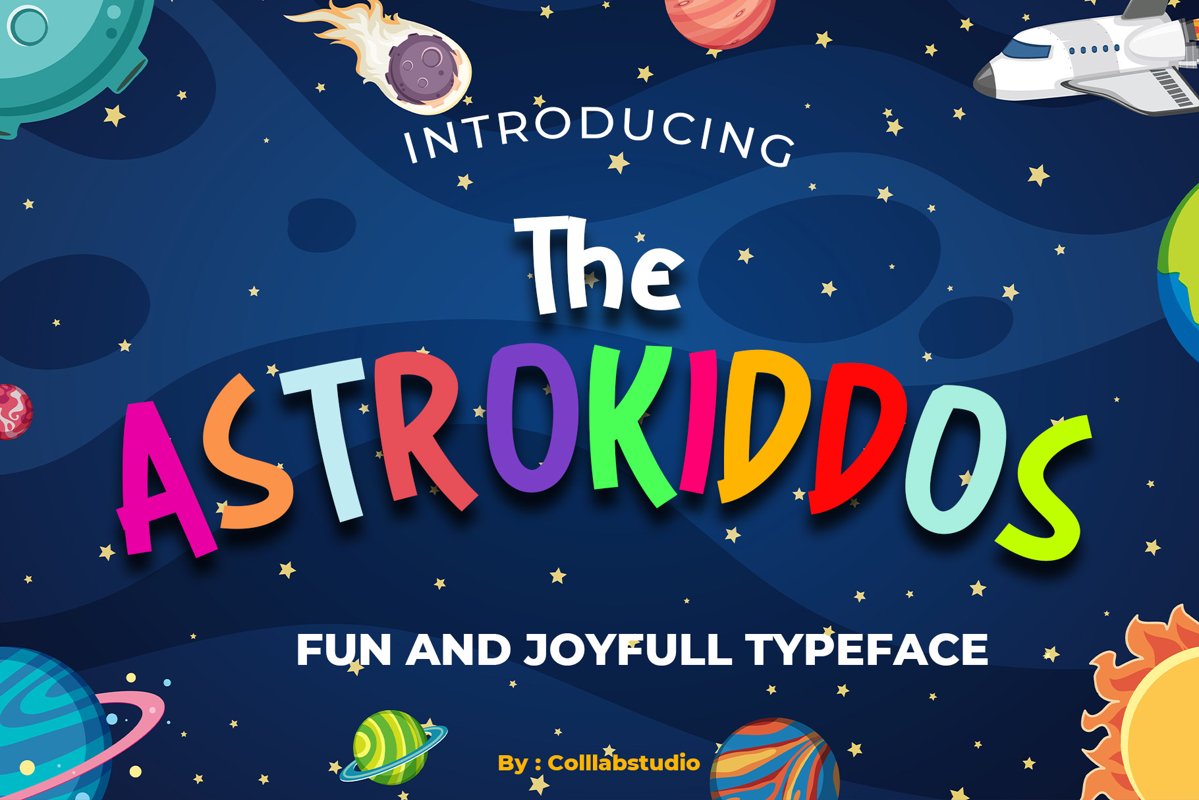
The Astrokiddos - A Fun & Joyfull Font
The Astrokiddos
The Astrokiddos is a cute and colorful display font. Its friendly feel makes this font incredibly versatile, fitting a wide range of contexts. Add it to your creative ideas and notice how it makes them stand out!